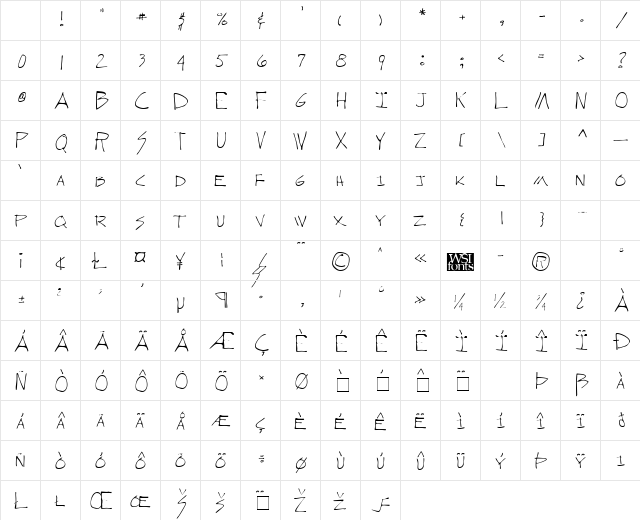
WebstersHand Regular Free Font
WebstersHand Regular
Design Context for WebstersHand
WebstersHand flows with the natural rhythm of handwritten lettering, making it ideal for designs that call for warmth and personal expression.